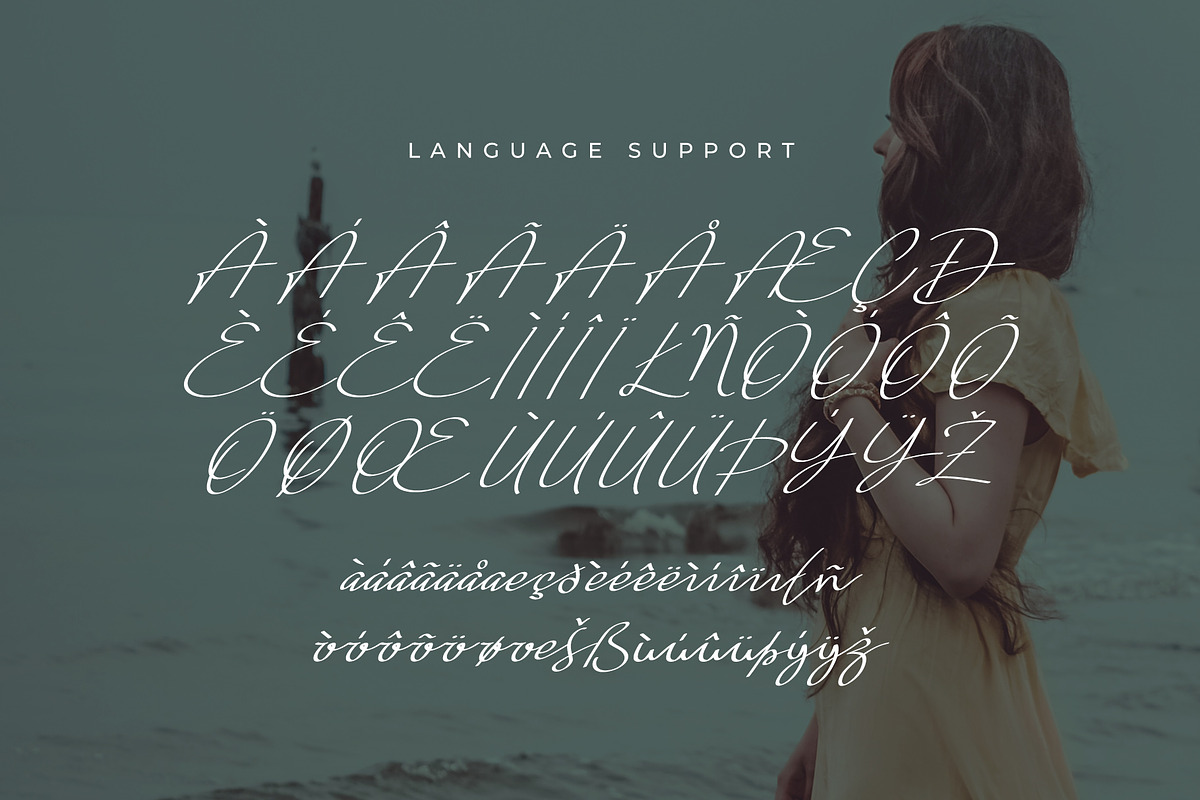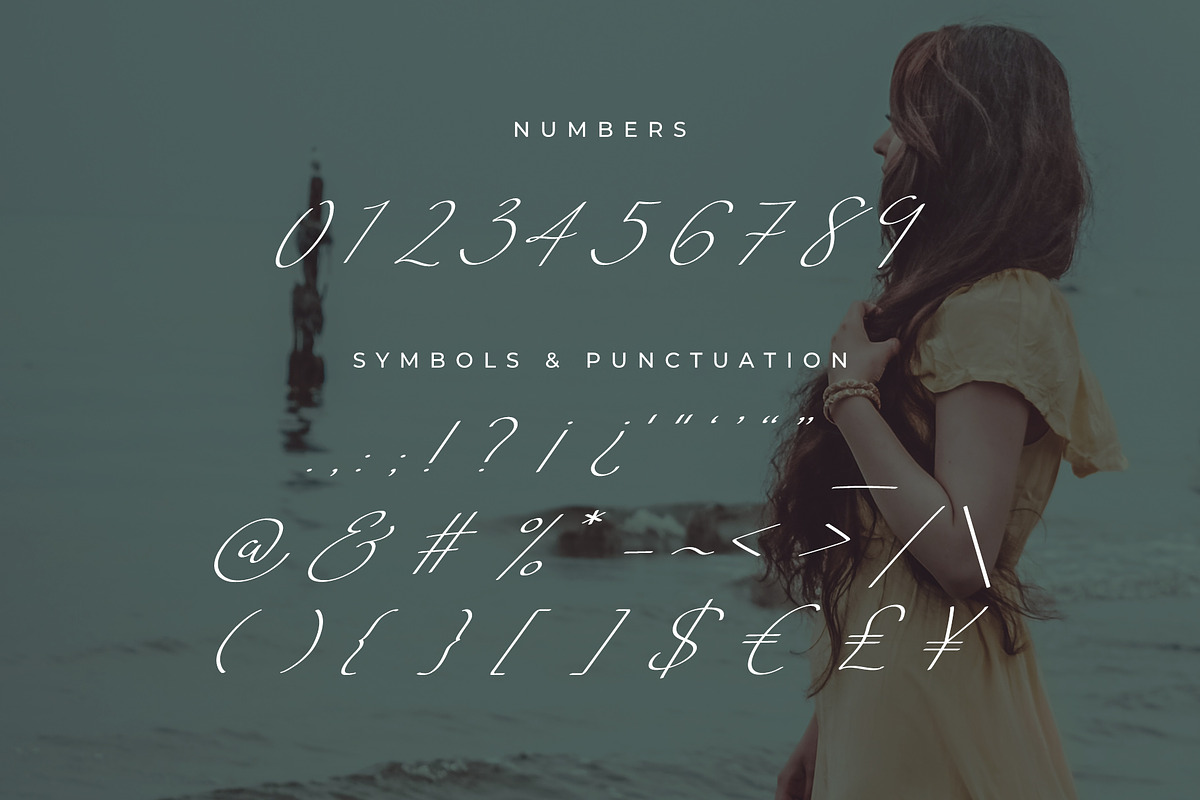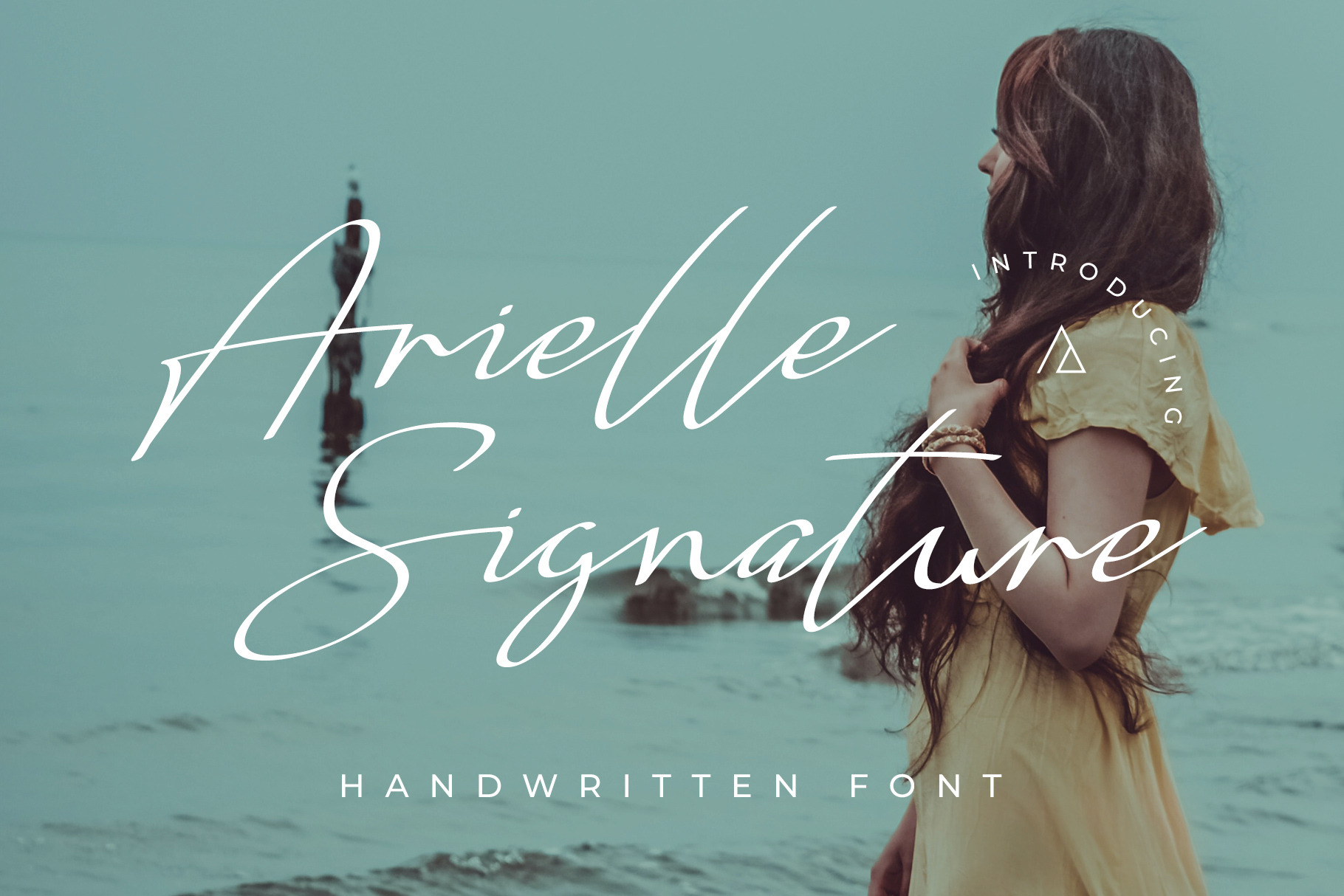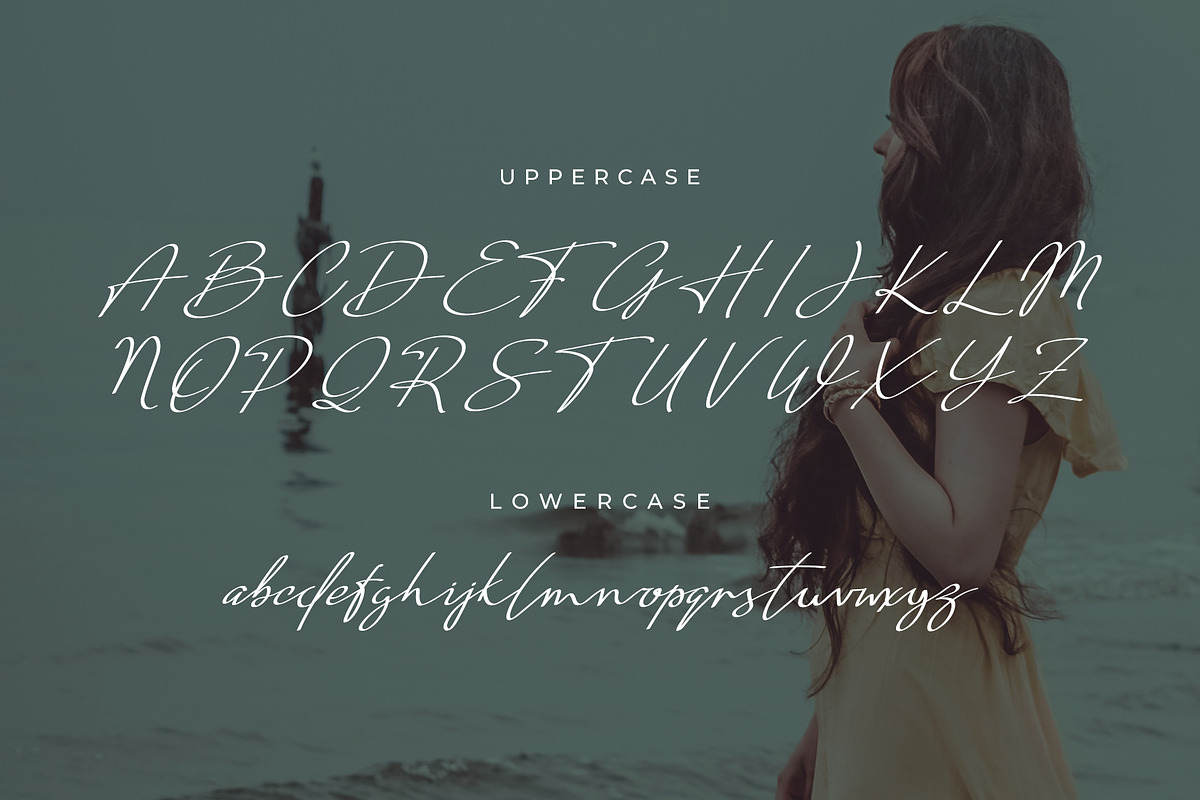
Arielle Signature - Handwritten Font
Arielle Signature is a handwritten typeface. It features calligraphic script elements with mixed width strokes and looping characteristics that will add an elegant feeling to your designs. Arielle is perfect for authentic handwriting and signatures.
This signature font includes all uppercase and lowercase letters, numbers and most common symbols and punctuation. And thanks to extensive kerning, Arielle flows from letter to create beautiful cursive handwriting.
- All uppercase letters (A-Z)
- All lowercase letters (a-z)
- All numbers (0-9)
- Common symbols and punctuation
- European language support